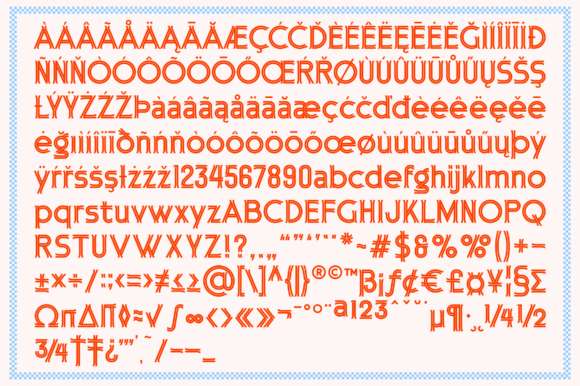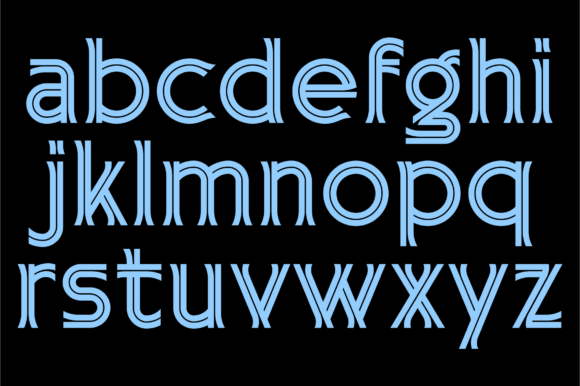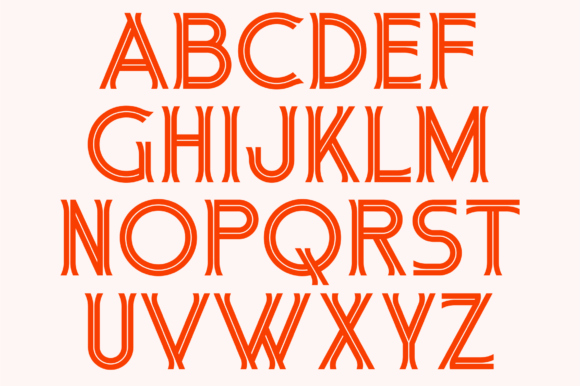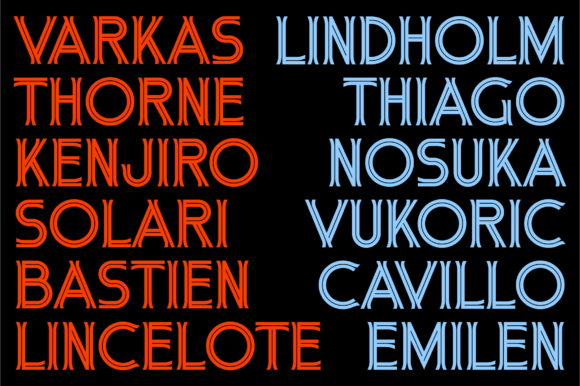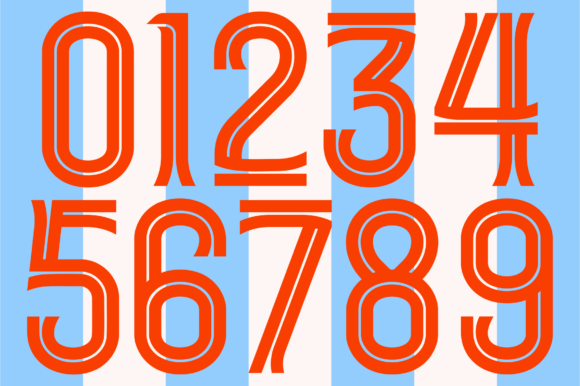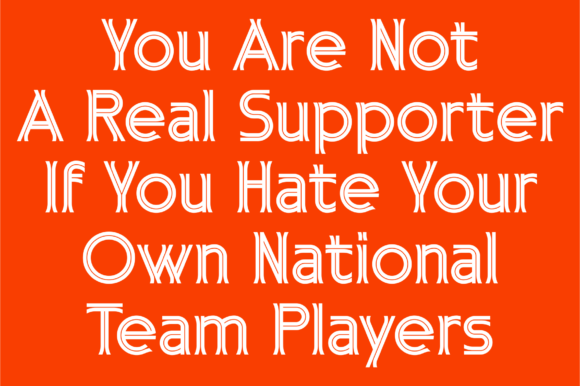
Unleashing the Power of Hayatica Font
You’ve been staring at your design for hours, trying to find that perfect combination of style and sophistication. And then, it hits you – a burst of creative energy that makes everything click into place. You’re on the hunt for a font that exudes elegance, modernity, and a touch of nostalgia. Enter the Hayatica Font, a masterful blend of mid-century athletic heritage and sharp, modernist precision.
This beautifully crafted font is not just a pretty face; it’s a versatile tool that can elevate your designs from mere mortals to design heroes. With its open nature, balanced weight, and rhythmic repetition of lines, Hayatica Font creates a sense of constant motion that’s perfect for capturing the essence of contemporary minimalist settings.
Whether you’re a seasoned designer or just starting out, the Hayatica Font is an invaluable addition to your toolkit. Its unique blend of style and sophistication makes it an ideal choice for anyone looking to create designs that are both timeless and cutting-edge.
Hayatica Font Key Features
- Font Family: Hayatica is a sans-serif font family designed for digital and print use.
- Character Set: Hayatica includes a wide range of characters, including Latin, Cyrillic, and Greek alphabets, as well as punctuation and symbols.
- Unique Characteristics: Hayatica is designed with a modern and clean aesthetic, featuring a distinctive x-height and a rounded sans-serif design.
Honest Review: Hayatica Font
Hayatica Font is a beautiful, modern sans-serif typeface that can elevate any design project. ✨ Here are a few things that work well:
- Legibility: Hayatica is extremely easy to read, making it perfect for body text.
- Flexibility: It comes in a wide range of weights, from light to bold, allowing for a lot of creative freedom.
- Styling options: The font includes many OpenType features, such as ligatures and swashes, which can add a touch of elegance to your designs.
However, there are a few limitations to keep in mind: ⚠️
- Line height: Hayatica can appear quite dense at times, requiring a bit more line height to maintain readability.
- Display usage: While Hayatica is great for body text, it might not be the best choice for headings or titles, as it can become too monotonous.
- Distress and wear: The font doesn’t come with a distressed or worn version, which might limit its creative potential.
Overall, I’d say Hayatica Font is a solid choice for designers looking for a clean, modern sans-serif typeface. While it has some limitations, its flexibility and styling options make it a great addition to any design project.
Hayatica Font: A Practical Application Guide
Use the Hayatica font to create visually appealing headings and titles. Experiment with different font sizes and styles to achieve a balanced design. Avoid using the Hayatica font for large blocks of text, as it can be overwhelming.
The Hayatica font is ideal for creative projects, such as:
- Business cards and stationery
- Infographics and presentations
- Web design and digital marketing materials